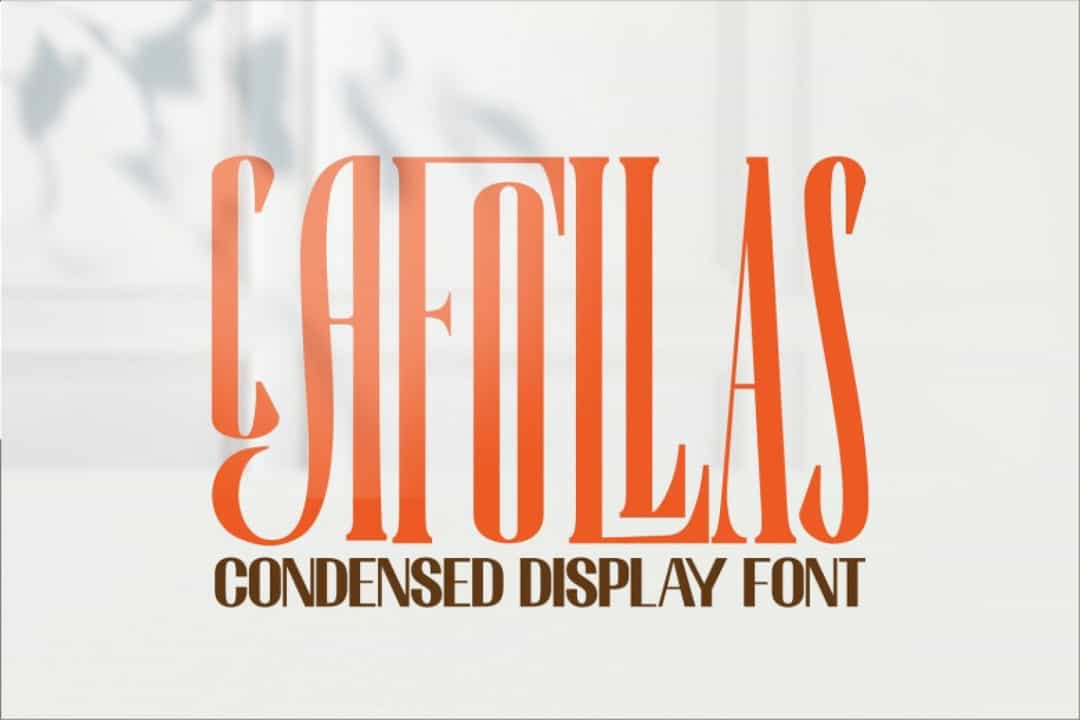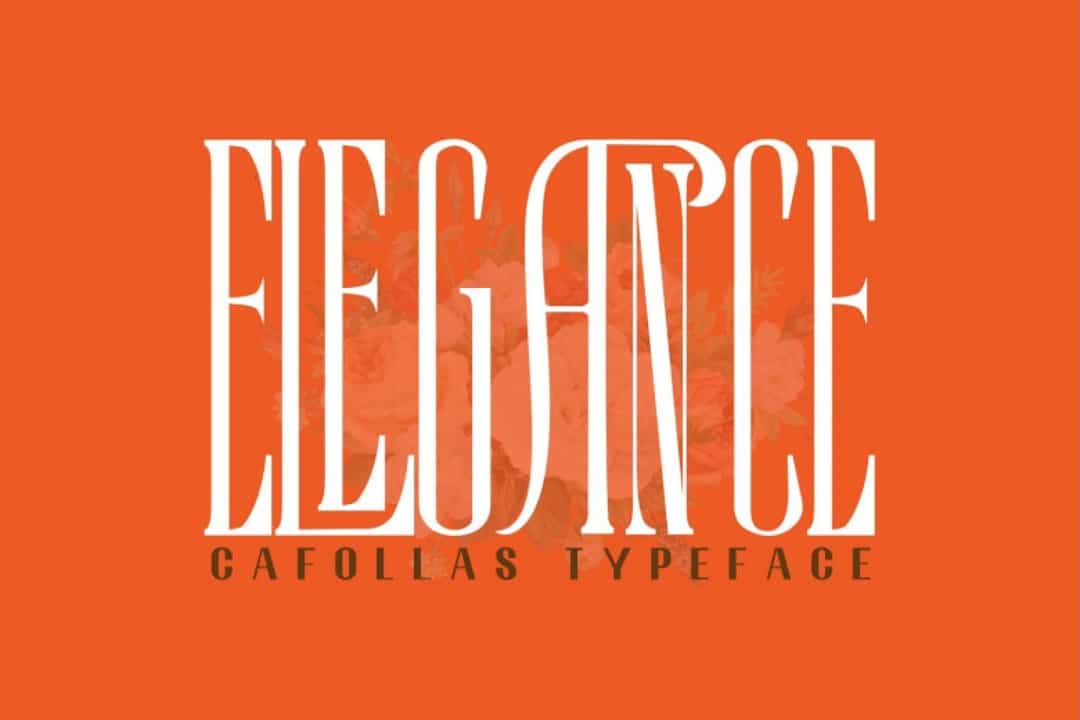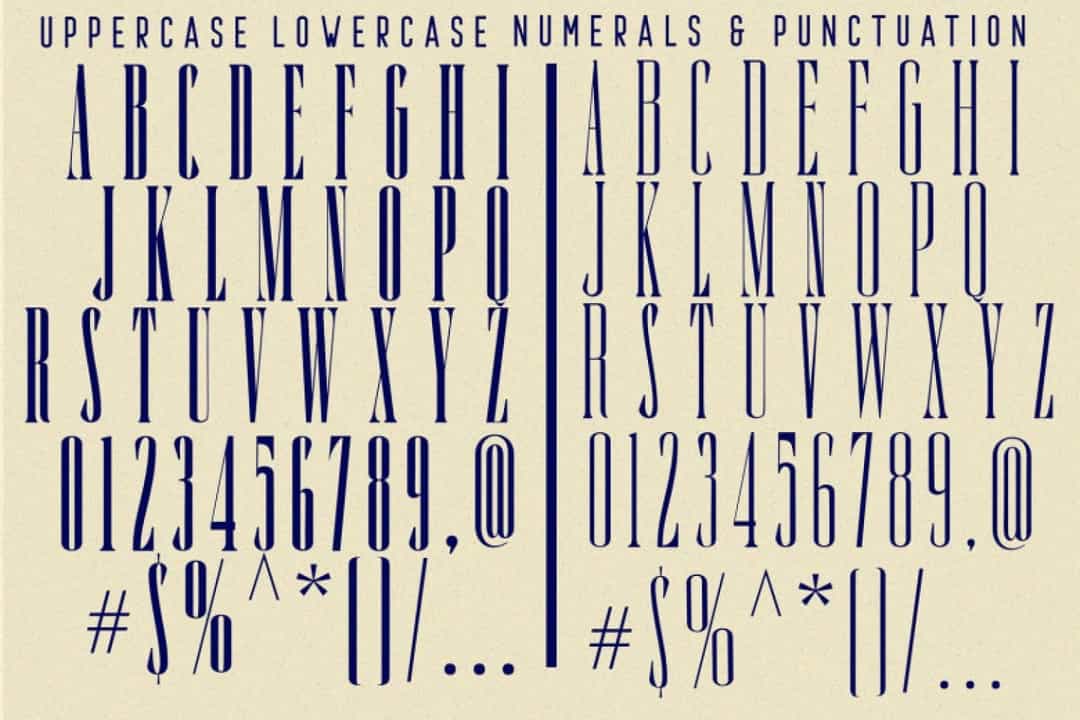
Cafollas Font is an enlarged serif typeface designed to be used for striking titles featuring unique shapes. As an ad hoc display font it makes modern usage more accessible while its extra condensed grotesque style and character ensure it catches everyone’s eye when seen in print or online. A huge font sure to catch anyone’s attention!